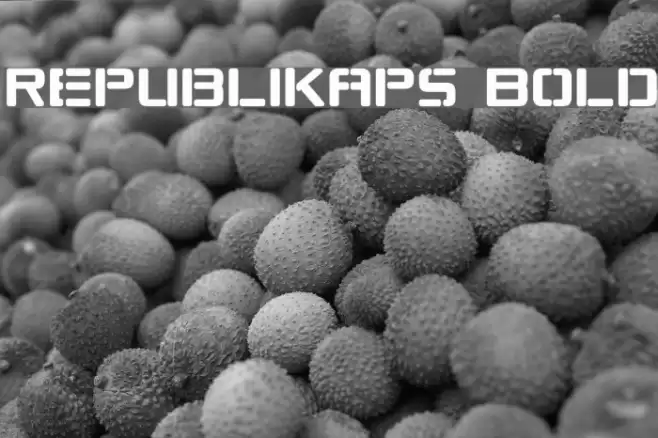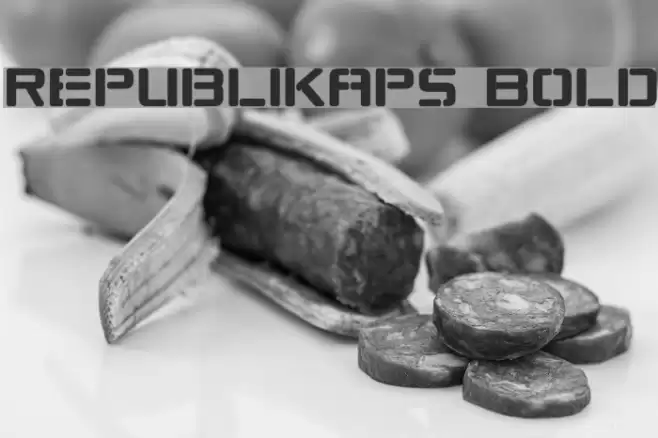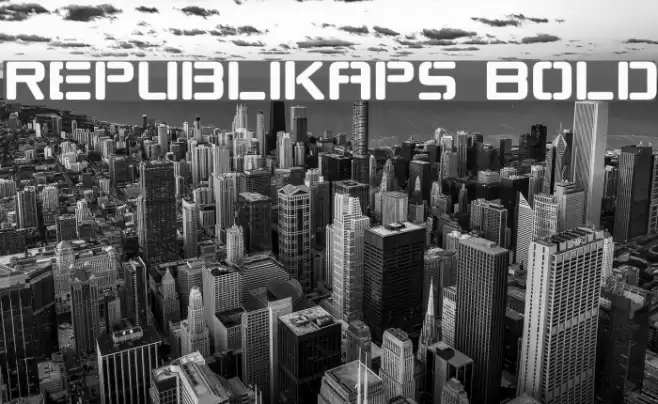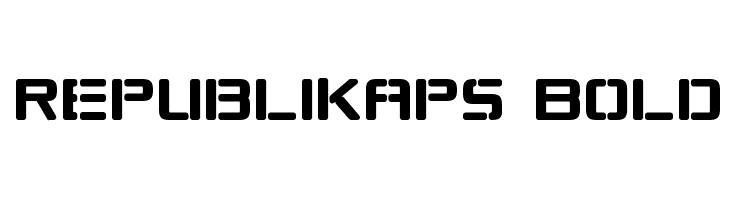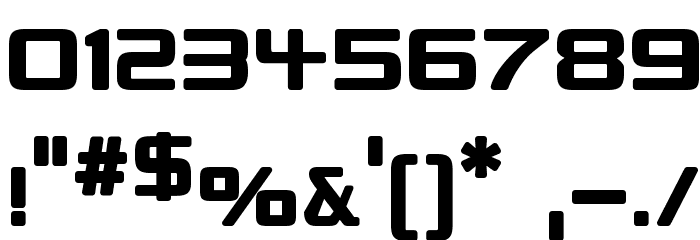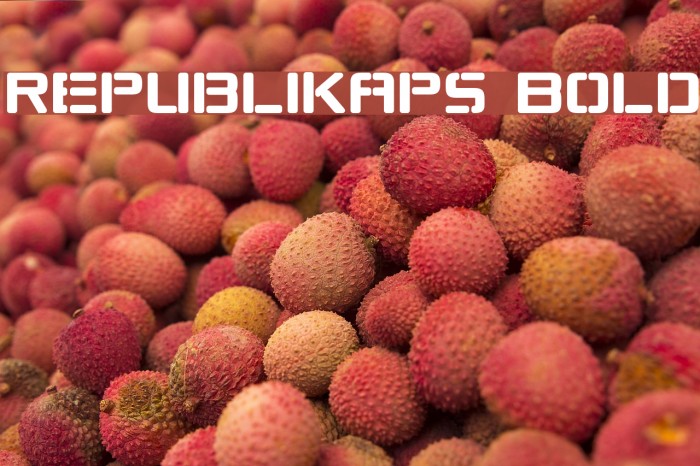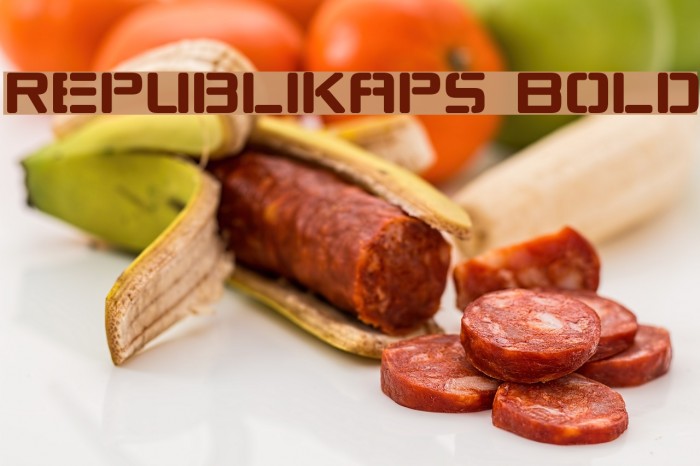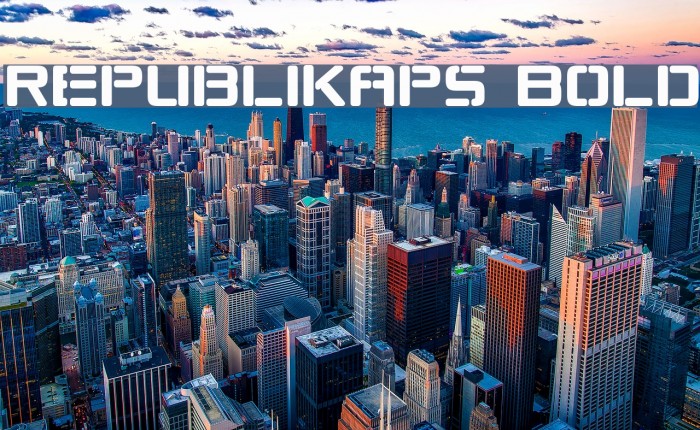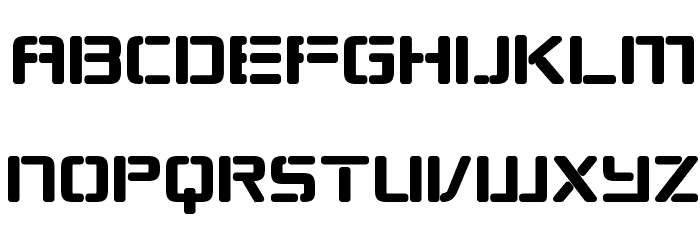
Republikaps Bold Font
Republikaps Bold Description
This font features a bold, geometric design with rounded corners, giving it a modern and futuristic appearance. The characters are uniformly thick, providing a strong visual impact. The uppercase letters are consistent in height, while the lowercase letters maintain a similar width, ensuring readability. The numerals are clear and distinct, matching the overall bold style. Special characters are well-integrated, maintaining the font's cohesive look. The design is suitable for digital and print media, offering versatility in various applications.
A bold, geometric font with rounded corners and a modern style from Uncategorized fonts.
- Proposed Projects: Ideal for technology branding, video game titles, futuristic posters, and digital interfaces.